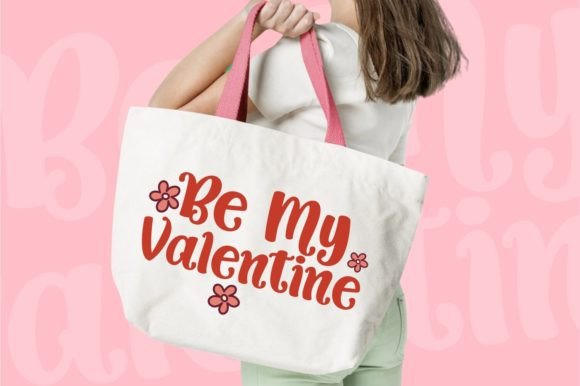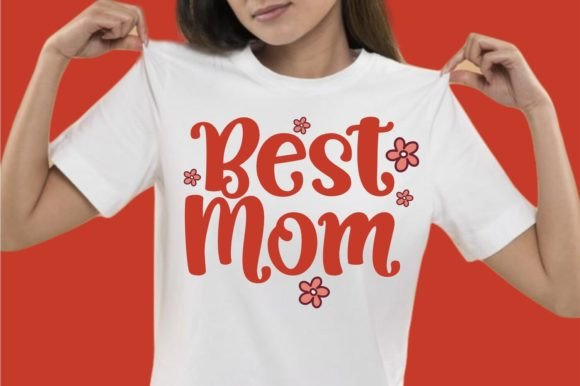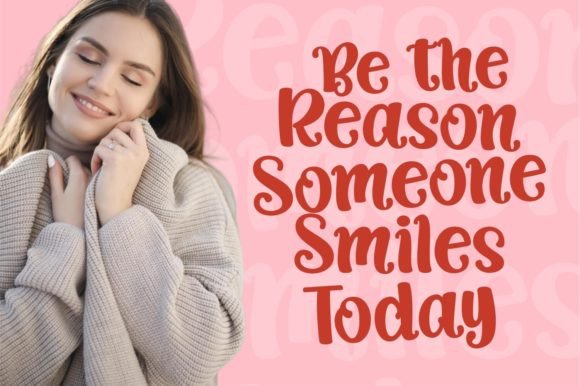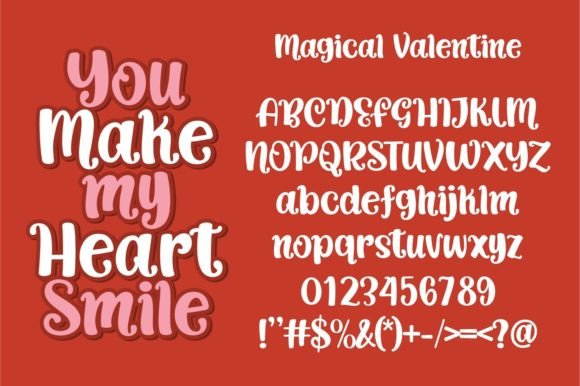
Introduction to Magical Valentine Font
As a designer, there’s no shortage of creative moments that spark inspiration. But there’s one moment that stands out – the moment you’re tasked with creating a Valentine’s Day design for a loved one. It’s a chance to express your feelings in a unique and thoughtful way, and that’s where the Magical Valentine Font comes in.
This charming font is more than just a design element – it’s a way to spread love and warmth through your creative project. With its playful strokes and heartwarming design, it’s the perfect choice for creating Valentine’s Day cards, love notes, or any project that needs a touch of romance. Whether you’re a seasoned designer or a hobbyist, the Magical Valentine Font is a valuable resource that can elevate your designs and make them truly special.
Key Features of Magical Valentine Font
- High-Quality Design – The Magical Valentine Font is a beautifully crafted design resource perfect for any creative project, offering a unique and elegant touch.
- Transparent Background – This font features a transparent background, making it easy to use in various design applications and allowing for seamless integration with other design elements.
- Vector Format – The Magical Valentine Font is available in vector format, allowing for easy scaling and editing without losing any quality.
- Perfect for Valentine’s Day – This font is specifically designed for Valentine’s Day-themed projects, making it an ideal resource for designers and artists creating cards, invitations, and other creative projects.
Honest Review: Magical Valentine Font
I recently had the chance to work with the Magical Valentine Font, and I must say, it’s a lovely addition to any creative project. The font’s whimsical design and elegant script make it perfect for adding a touch of romance and magic to your work.
- ✨ High-quality design: The font’s intricate details and smooth lines make it a joy to work with.
- ✨ Transparent background: This feature allows for seamless integration into any design, whether it’s a digital or print project.
- ⚠️ Limited font styles: While the Magical Valentine Font is beautiful, it’s a bit limited in terms of font styles and variations.
- ⚠️ Not ideal for bold text: The font’s delicate design makes it less suitable for bold or large text, which can be a bit overwhelming.
Overall, I’m impressed with the Magical Valentine Font’s design and functionality. It’s a great resource for designers looking to add a touch of magic to their work, especially for creative projects like Valentine’s Day cards or wedding invitations.
Tips for Getting the Most Out of Magical Valentine Font
Use the Magical Valentine Font in your creative project to add a touch of romance and whimsy. Combine it with other design resources, such as graphics and illustrations, to create a unique and eye-catching design. Experiment with different font sizes and colors to achieve the desired effect.
The Magical Valentine Font is perfect for Valentine’s Day cards, invitations, and other romantic designs. It can also be used for general design purposes, such as creating a free download for a website or social media post. With its high-quality design and transparent background, the Magical Valentine Font is a valuable design resource for any creative project.